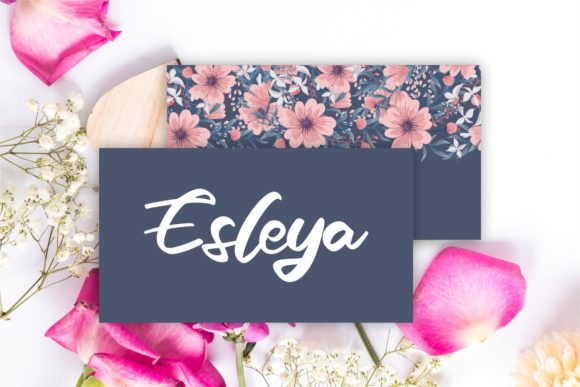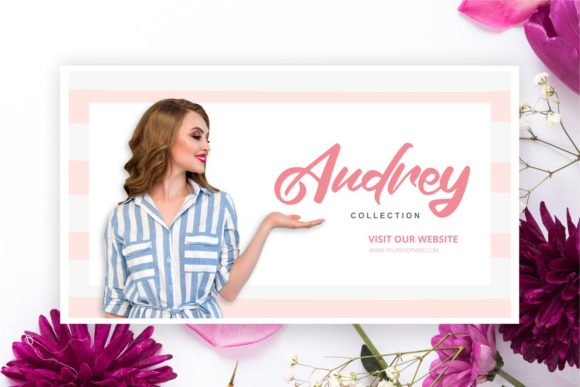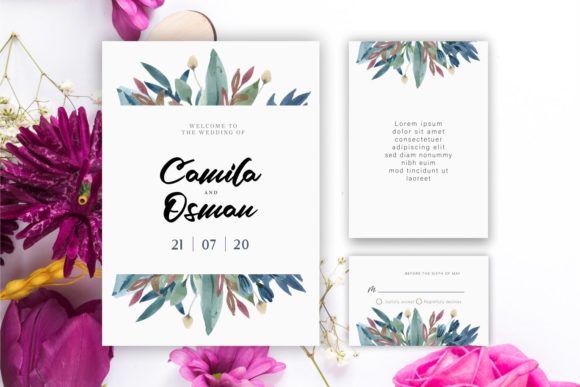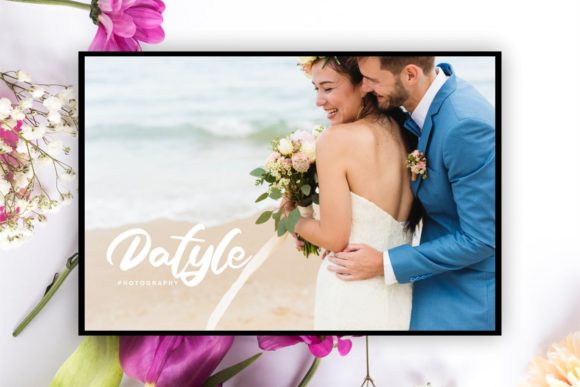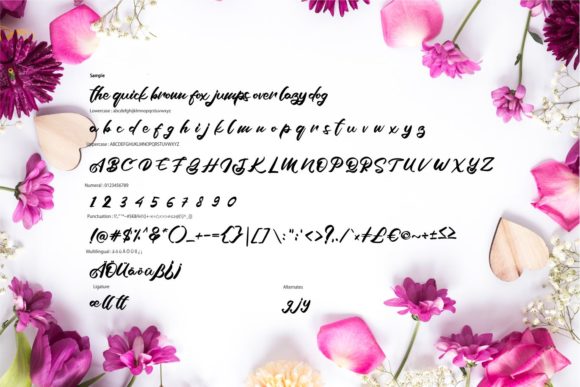
Discover the Charm of Azala Font: Adding a Playful Twist to Your Crafts
Are you a designer or crafter looking for a font that can add a touch of sweetness and playfulness to your projects? Look no further than Azala Font! This delightful script font is designed to bring a unique spin to your crafts, making them stand out from the crowd. In this article, we’ll dive into the world of Azala Font, exploring its features, benefits, and uses, as well as provide tips on how to make the most of this charming font.
What is Azala Font?
Azala Font is a beautiful script font that boasts a sweet and delightful personality. Its unique design combines elegant curves with a playful twist, making it perfect for a wide range of creative projects. Whether you’re working on a DIY craft, a graphic design project, or a digital illustration, Azala Font is sure to add a touch of whimsy and charm.
Key Features of Azala Font
- Unique Spin: Azala Font features a distinctive spin that sets it apart from other script fonts. Its letters are designed to flow smoothly, creating a sense of movement and energy.
- Playful Vibe: This font is perfect for adding a playful touch to your projects. Its sweet and delightful personality makes it ideal for crafts, illustrations, and designs that require a lighthearted feel.
- Elegant Curves: Azala Font features elegant curves that add a touch of sophistication to your projects. Its smooth lines and flowing letters create a beautiful visual effect.
- Versatile: This font is versatile and can be used for a wide range of projects, from digital illustrations to handmade crafts.
Benefits of Using Azala Font
So, why should you choose Azala Font for your next project? Here are just a few benefits of using this delightful font:
- Adds a Personal Touch: Azala Font can add a personal touch to your projects, making them more unique and special.
- Enhances Creativity: This font can inspire creativity and help you think outside the box. Its playful vibe can encourage you to experiment with new ideas and techniques.
- Perfect for Branding: Azala Font can be used for branding purposes, such as creating logos, business cards, and social media graphics.
- Easy to Read: Despite its playful nature, Azala Font is easy to read, making it perfect for use in digital and print materials.
Using Azala Font in Your Crafts
Azala Font can be used in a variety of crafts, including:
- Handmade Cards: Add a personal touch to your handmade cards with Azala Font. Use it to create beautiful sentiments, titles, and decorations.
- Journaling: Use Azala Font to add a playful touch to your journal pages. Its elegant curves and smooth lines create a beautiful visual effect.
- DIY Projects: Azala Font can be used for a wide range of DIY projects, such as scrapbooking, paper crafting, and mixed media art.
Tips for Getting the Most Out of Azala Font
Here are a few tips for getting the most out of Azala Font:
- Experiment with Colors: Try pairing Azala Font with different colors to create a unique and eye-catching effect.
- Mix and Match: Combine Azala Font with other fonts to create a beautiful contrast and add visual interest to your projects.
- Play with Sizes: Experiment with different font sizes to create a sense of hierarchy and emphasis in your projects.
Azala Font is a sweet and delightful script font that can add a playful twist to any craft. Its unique spin, elegant curves, and versatile nature make it perfect for a wide range of creative projects. Whether you’re a designer or crafter, Azala Font is sure to inspire your creativity and help you create something truly special. So why not give it a try and see the magic for yourself?